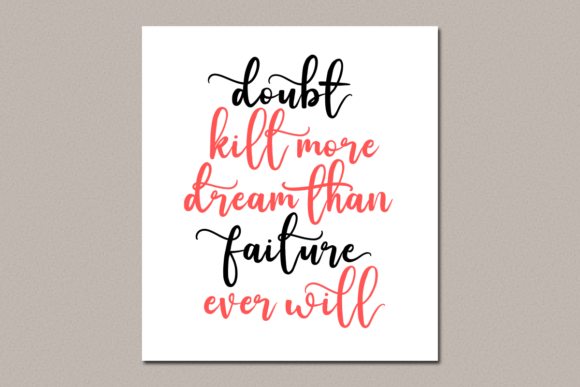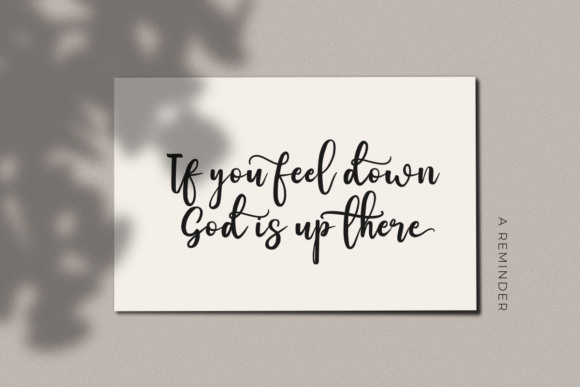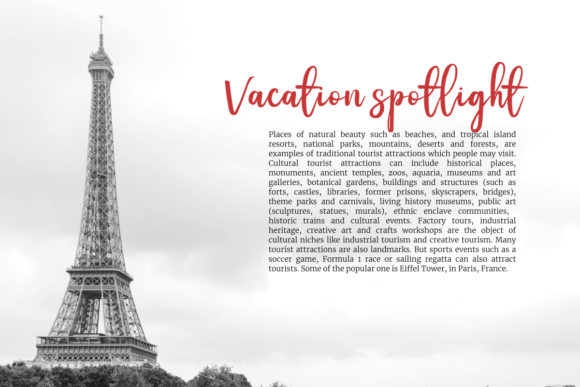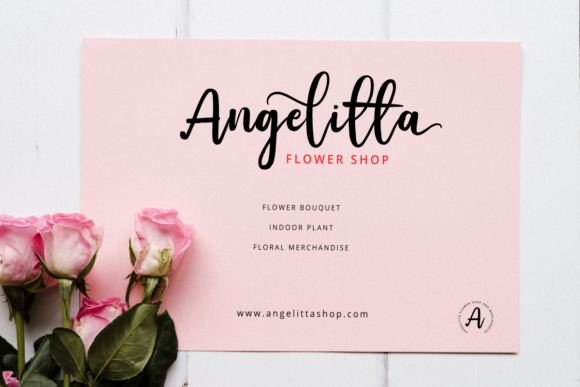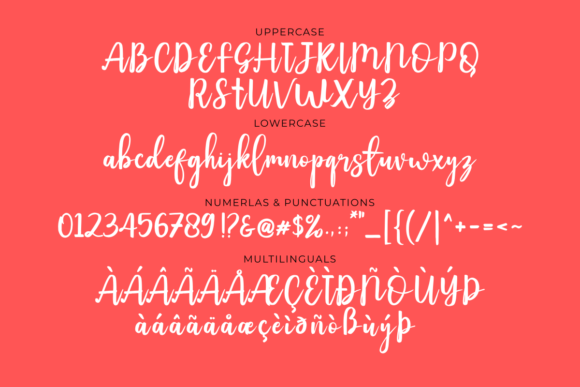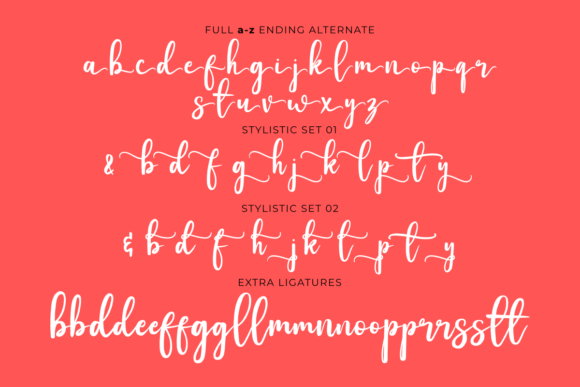
Introduction to Freeliving Font
There’s something magical about the moment when a design idea clicks into place. You’ve been brainstorming for hours, pouring over inspiration boards and scribbling down notes, and then – it happens. The perfect font pops into your head, and you know exactly how to bring your creative project to life. For many designers, that moment is made all the sweeter when they discover the Freeliving Font.
With its lovely, timeless handwritten style, Freeliving Font is the perfect choice for creating eye-catching logos, branding, and quotes that truly stand out. Whether you’re working on a free download project or a high-end design campaign, this versatile font is sure to add a touch of sophistication and elegance to your work. And with its transparent background, you can easily layer it over images or other design elements to create a truly unique look.
As a valuable design resource, Freeliving Font is a must-have for any serious designer. Its high quality and ease of use make it an ideal choice for a wide range of creative projects – from small business branding to large-scale advertising campaigns. And with its PUA encoding, you can access all of the glyphs and swashes with ease, giving you even more creative freedom to explore and express yourself.
Key Features of Freeliving Font
- High-quality design resource with a unique, creative style, perfect for a variety of projects.
- Features a transparent background, allowing for easy integration into any design project.
- Designed with a modern aesthetic, making it ideal for use in creative projects, such as logos, branding, and advertising.
- Designed at a large size (up to 1024px) and high resolution (300 DPI), ensuring crisp and clear text.
Honest Review: Freeliving Font
I recently stumbled upon the Freeliving Font, and I must say it’s been a game-changer for my design projects. This free download has been a reliable design resource, providing me with a high-quality font that’s perfect for creative projects.
The Freeliving Font is particularly useful for designs that require a transparent background, making it easy to work with. Its clean and modern design style is versatile and can be used for a wide range of projects, from logos to typography-based designs.
Here are some of the things that work well with the Freeliving Font:
- ✨ High-quality design: The font is crisp and clear, making it perfect for both print and digital designs.
- ✨ Versatile: The Freeliving Font can be used for a wide range of projects, from logos to typography-based designs.
However, I do have to mention a few limitations:
- ⚠️ Limited font styles: While the Freeliving Font is a great addition to any design collection, it’s limited in terms of font styles.
- ⚠️ No extended character set: This font doesn’t come with an extended character set, which may be a limitation for designers who work with non-English languages.
Overall, I’m really impressed with the Freeliving Font. Its high-quality design, versatility, and free download make it a great resource for designers. While it has a few limitations, I believe it’s still worth adding to your design collection.
Tips for Getting the Most Out of Freeliving Font
To get the most out of Freeliving Font, use it with a transparent background to create a striking visual effect. Experiment with different font sizes, colors, and styles to find the perfect combination for your creative project.
Freeliving Font is ideal for use in logo designs, social media graphics, and marketing materials. Its unique style and high-quality design make it perfect for any creative project where you need to stand out from the crowd.